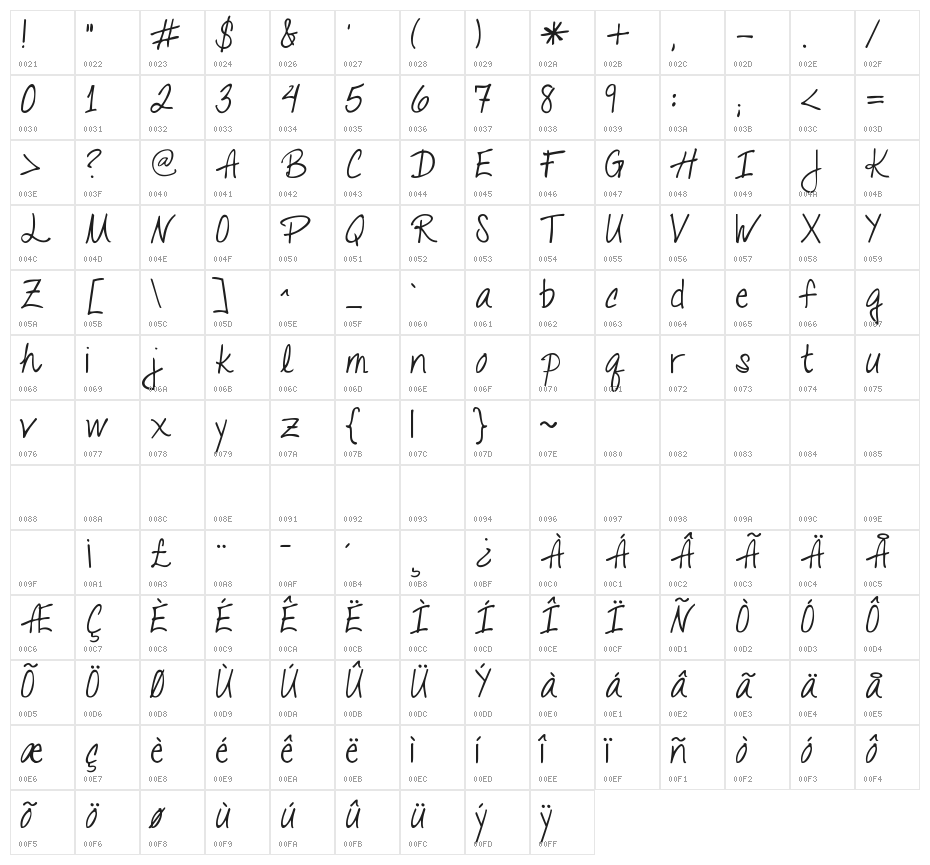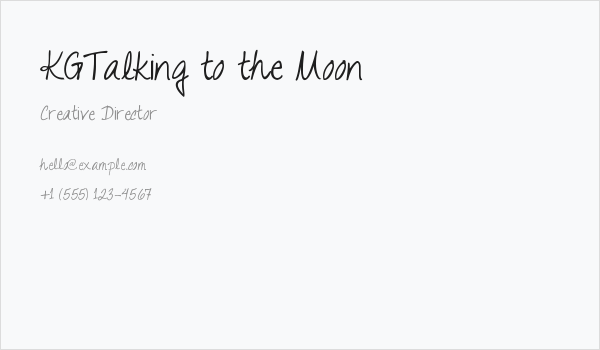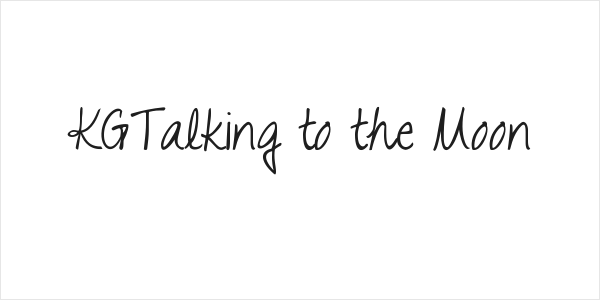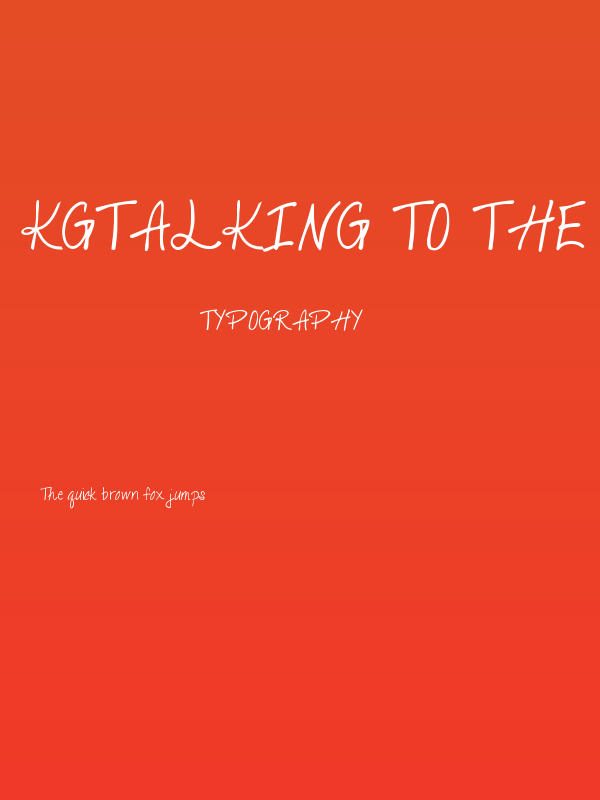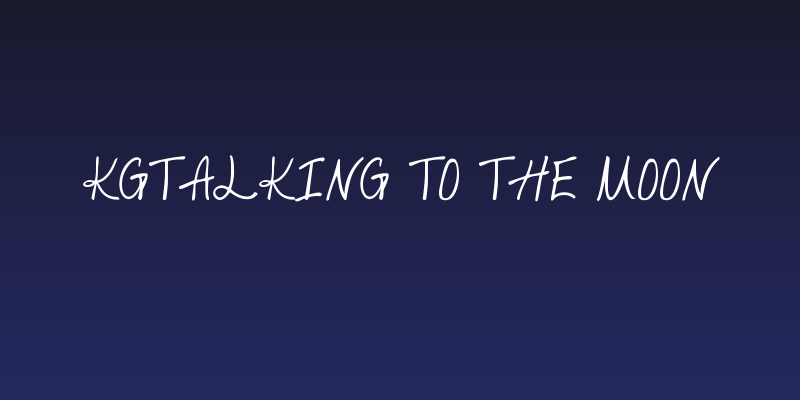
KGTalking to the Moon Font
KGTalking to the Moon Description
This font features a playful and casual handwritten style, characterized by its fluid and natural strokes. The uppercase letters exhibit a slight slant, adding to the informal feel, while the lowercase letters maintain a consistent flow. The numerals are distinct and easy to read, complementing the overall aesthetic. Special characters are creatively integrated, maintaining the font's cohesive look. The font's organic appearance makes it suitable for projects that require a personal touch, such as invitations, greeting cards, and informal branding. Its legibility and charm make it versatile for various design needs.
| Proposed Projects | Ideal for invitations, greeting cards, personal branding, and informal design projects. |